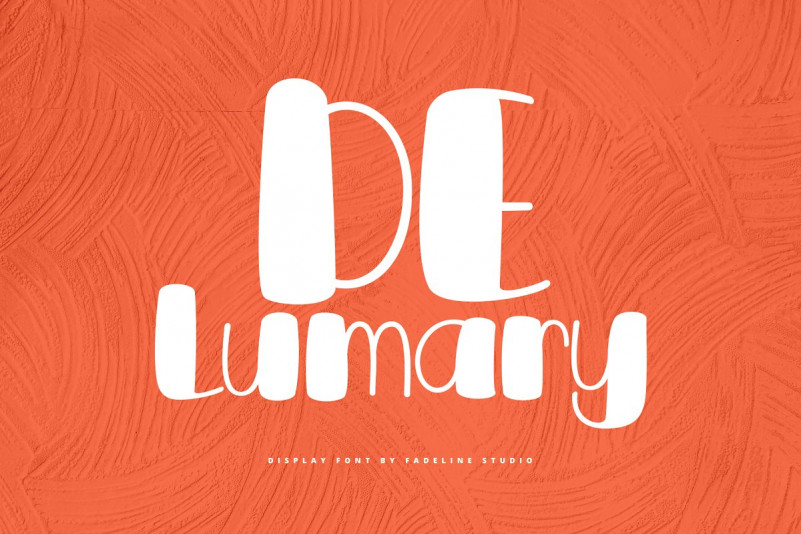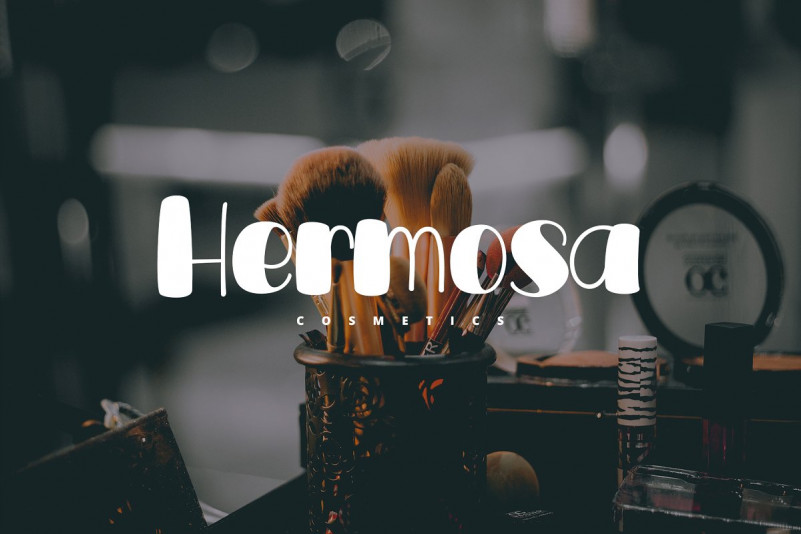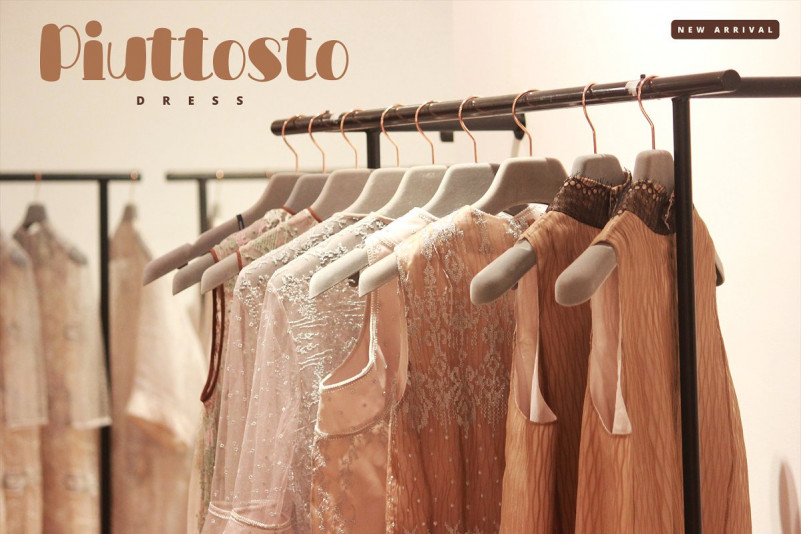
DeLumary Font
Introducing!
DeLumary is a new unique and funny display font. This font adopts a bold, cute, firm, and trendy style. Very suitable to meet your various design needs that are trending now.
With a style like this, this font will be suitable in use for comic, logo’s, branding projects, homeware designs, product packaging, mugs, quotes, posters, shopping bags, logo’s, t-shirts, book covers, name card, invitation cards, greeting cards, and all your other lovely projects.